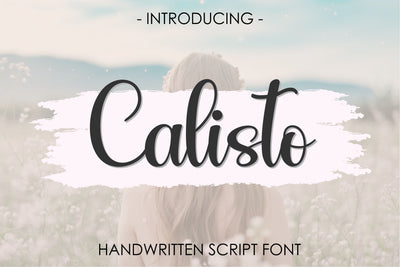
Calisto is a sophisticated script font with elegant, flowing lines and a refined handwritten style, perfect for adding a touch of luxury to any design project. This versatile font is ideal for invitations, branding, social media graphics, logos, greeting cards, and more. The smooth curves and graceful flourishes make Calisto stand out as a premium choice for creatives seeking a timeless, high-quality font. Available in OTF and TTF formats for compatibility with all major design software, Calisto is easy to use and ready to elevate your projects with style.